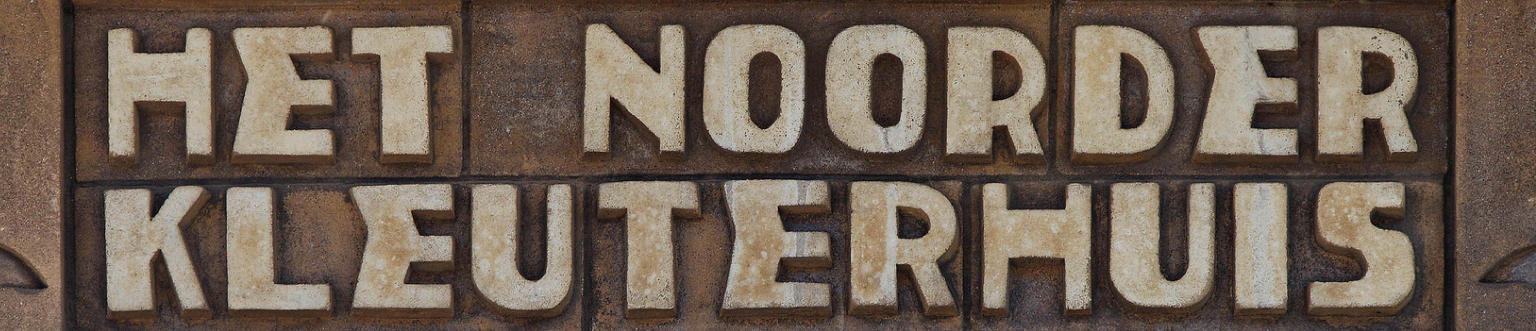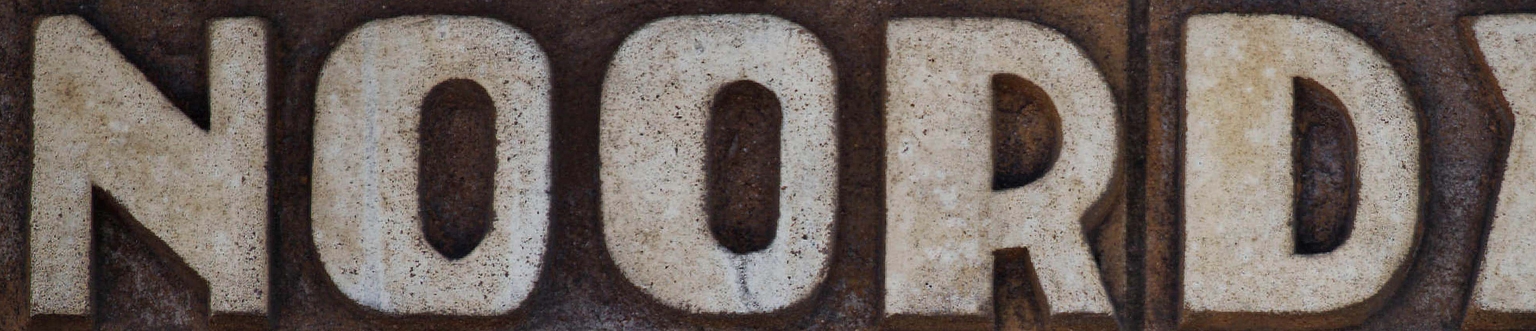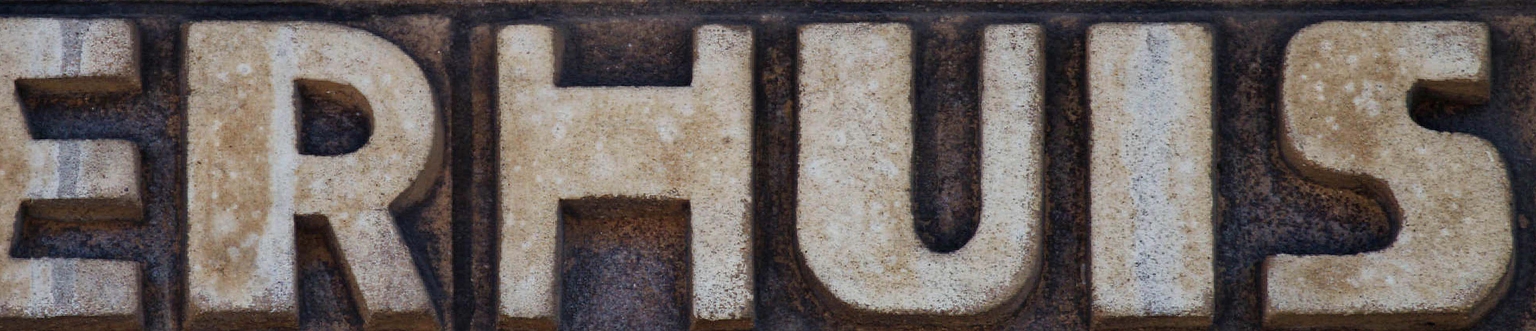
Gebroken
This typeface is inspired by a style of lettering found in some Dutch elementary schools and public buildings constructed in the 1920s.
In 2025, Ramiro Espinoza took numerous photographs of buildings in Voorburg, Leiden, Wassenaar, and Haarlem to document this lettering style. The next step was to design a font, which involved eliminating inconsistencies in the original letterforms and completing the character set in a harmonious way.
The name Gebroken ("broken" in Dutch) alludes to the most striking feature of the design: the unusual shape of its letter "E."
This font is sure to perform well in designs that require large type sizes, such as posters and book covers. Art directors looking for original and recognizable fonts for logos and websites will surely find a reliable ally in Gebroken.